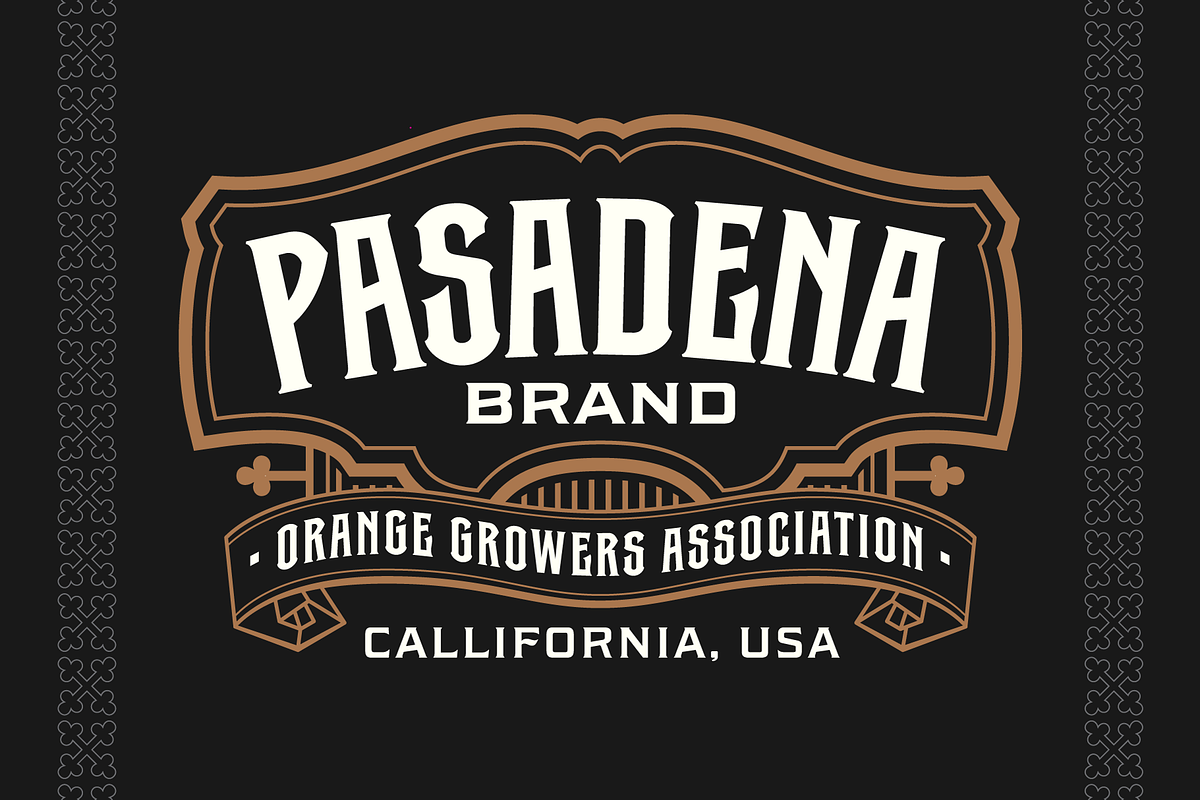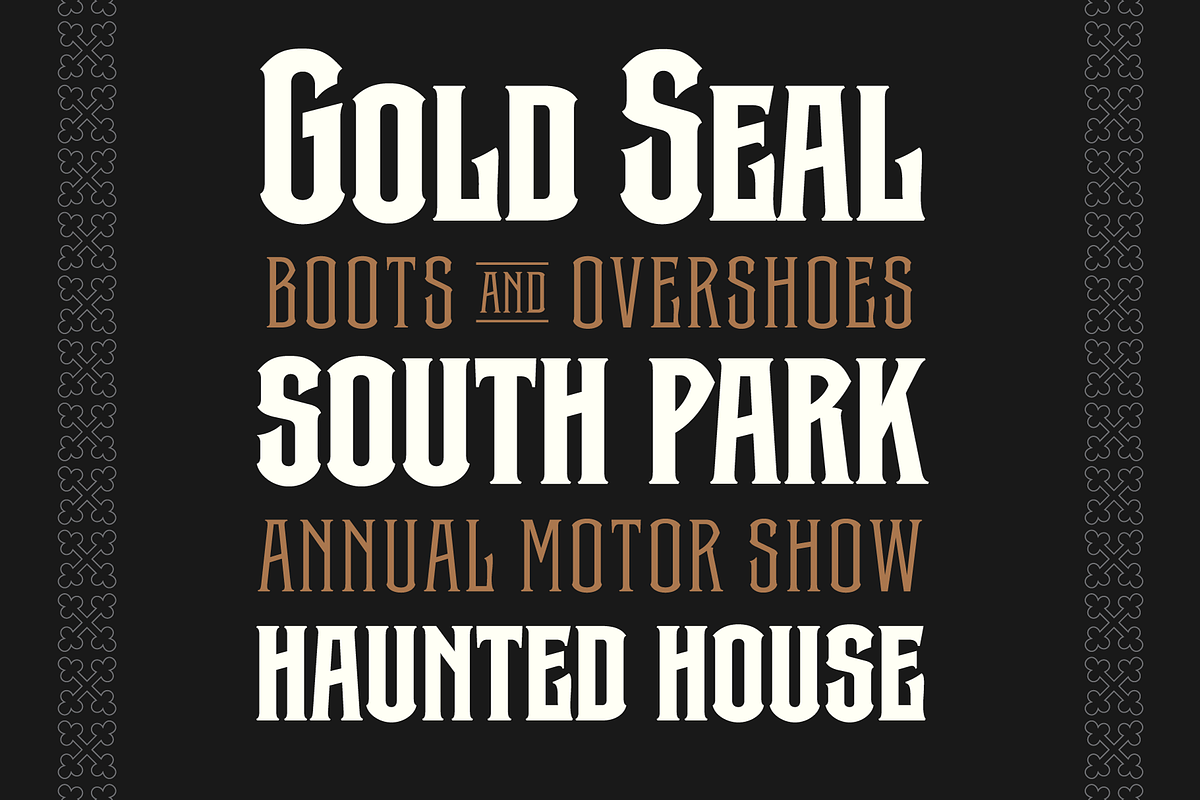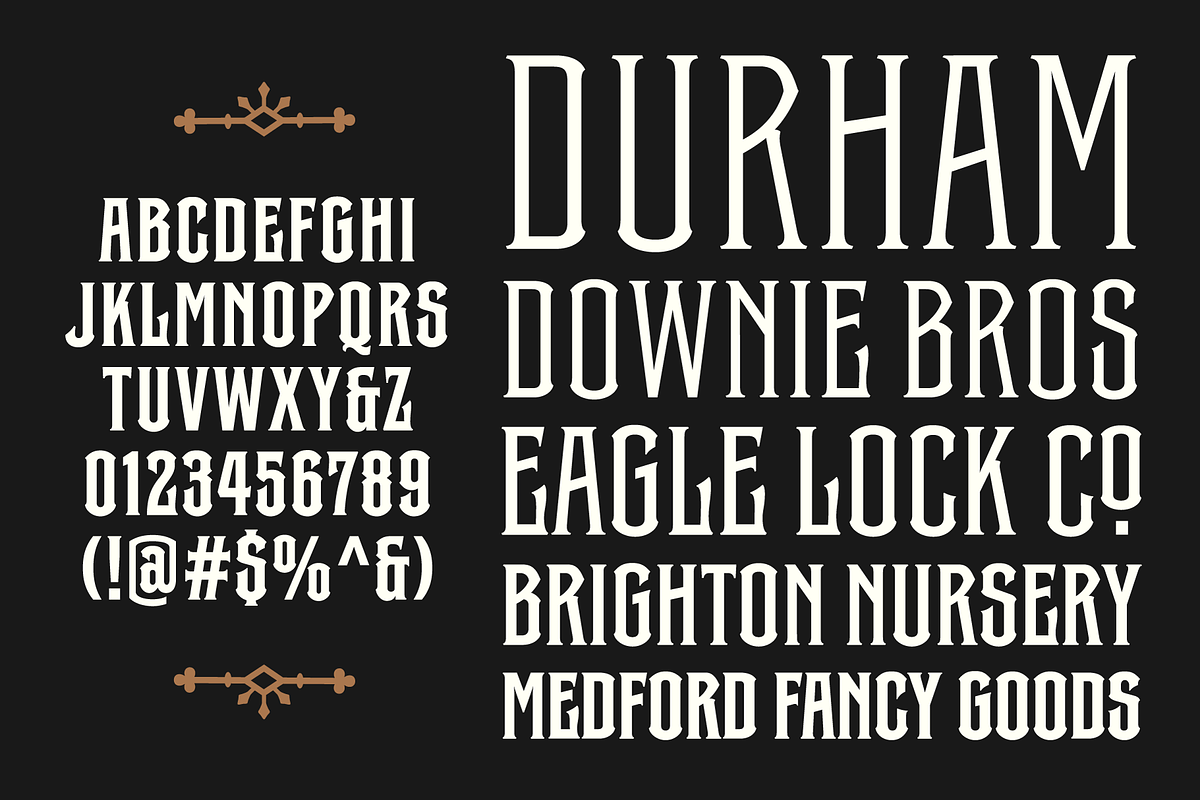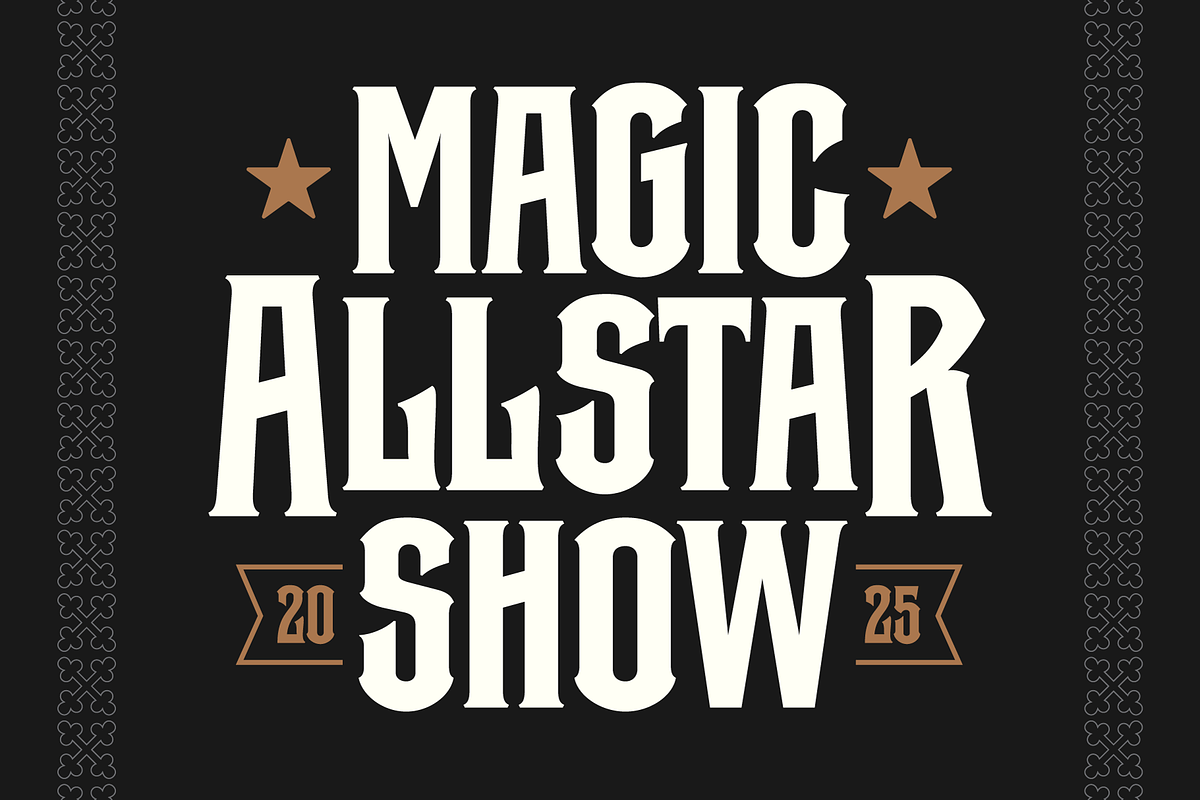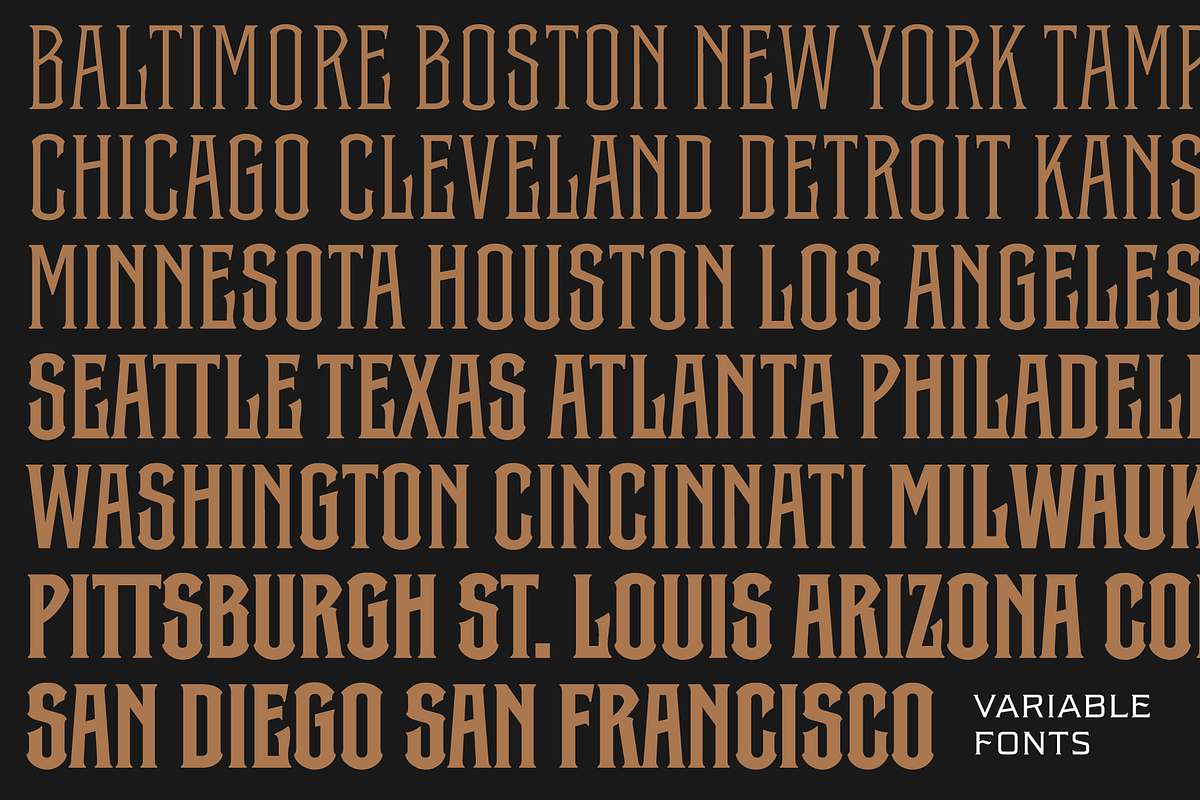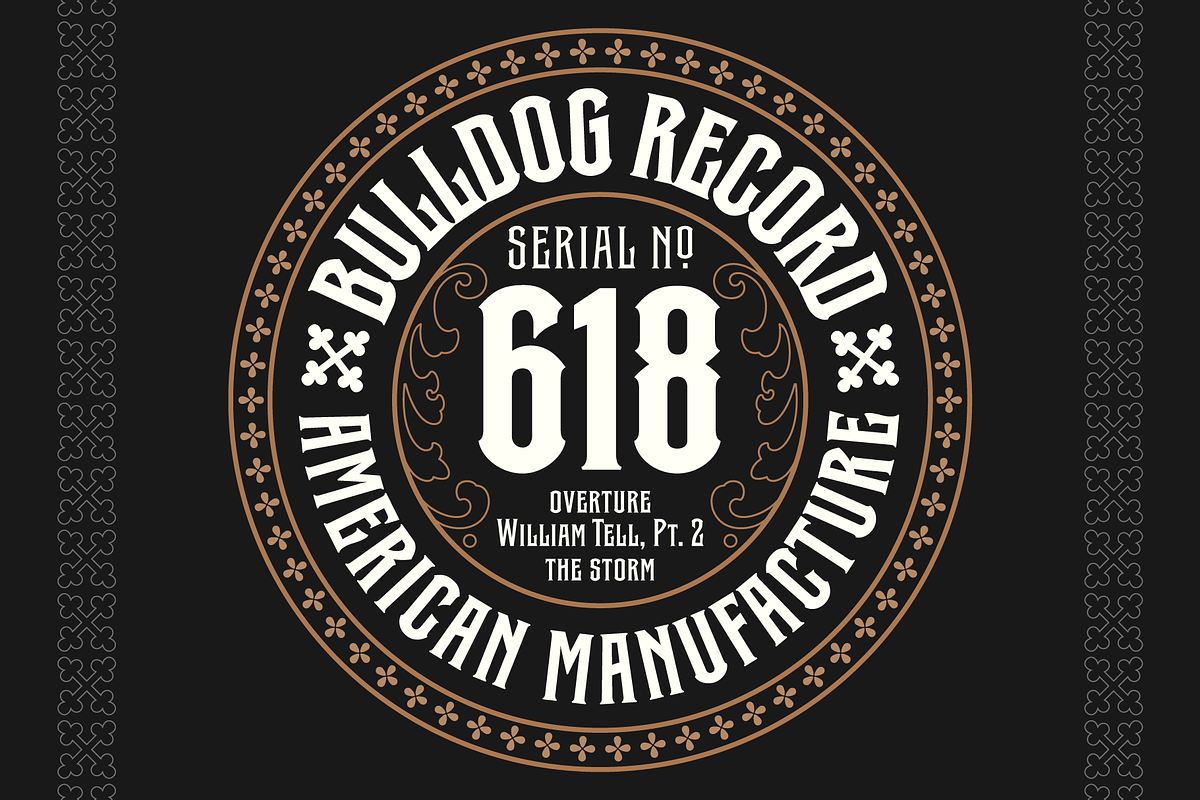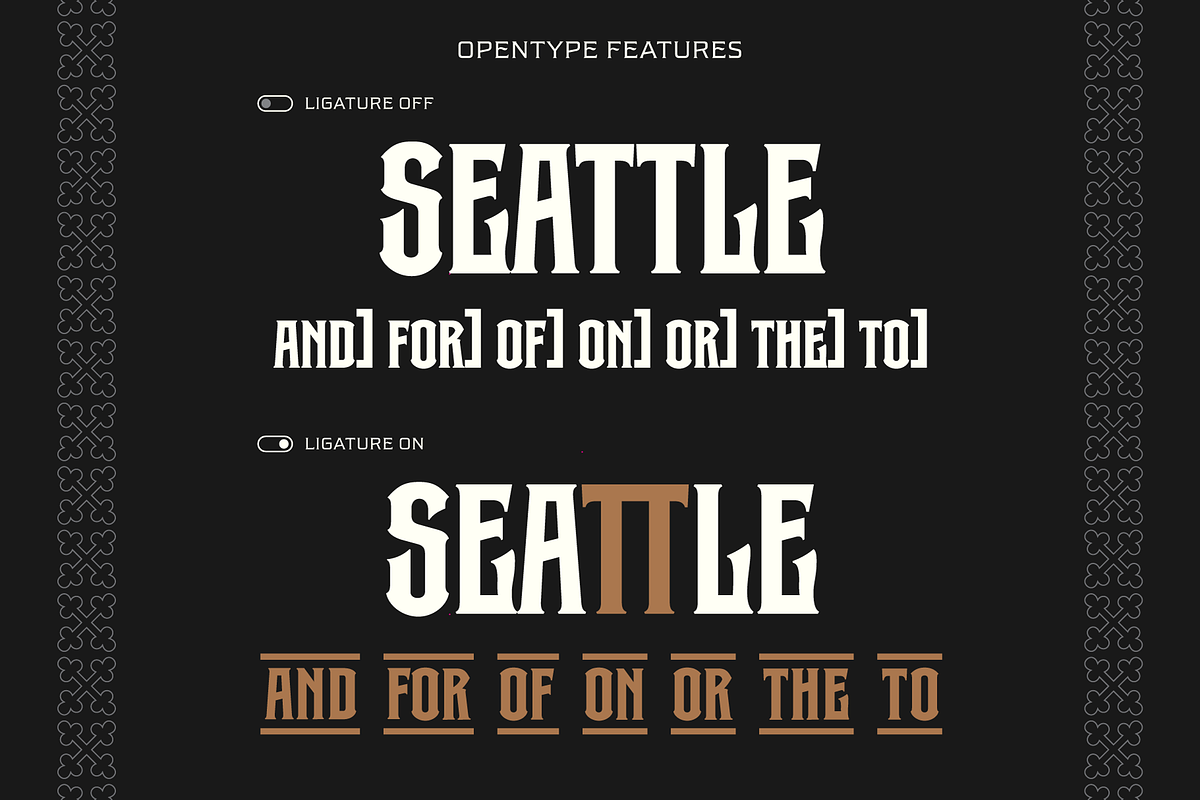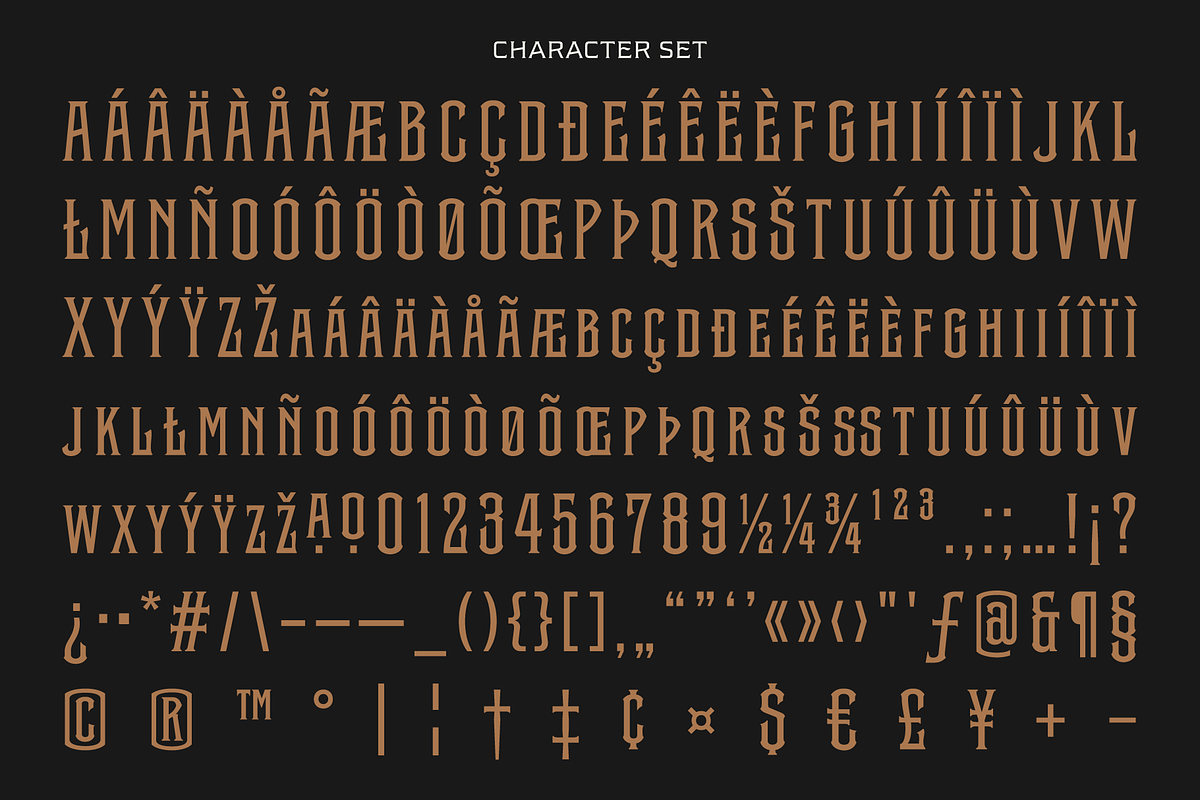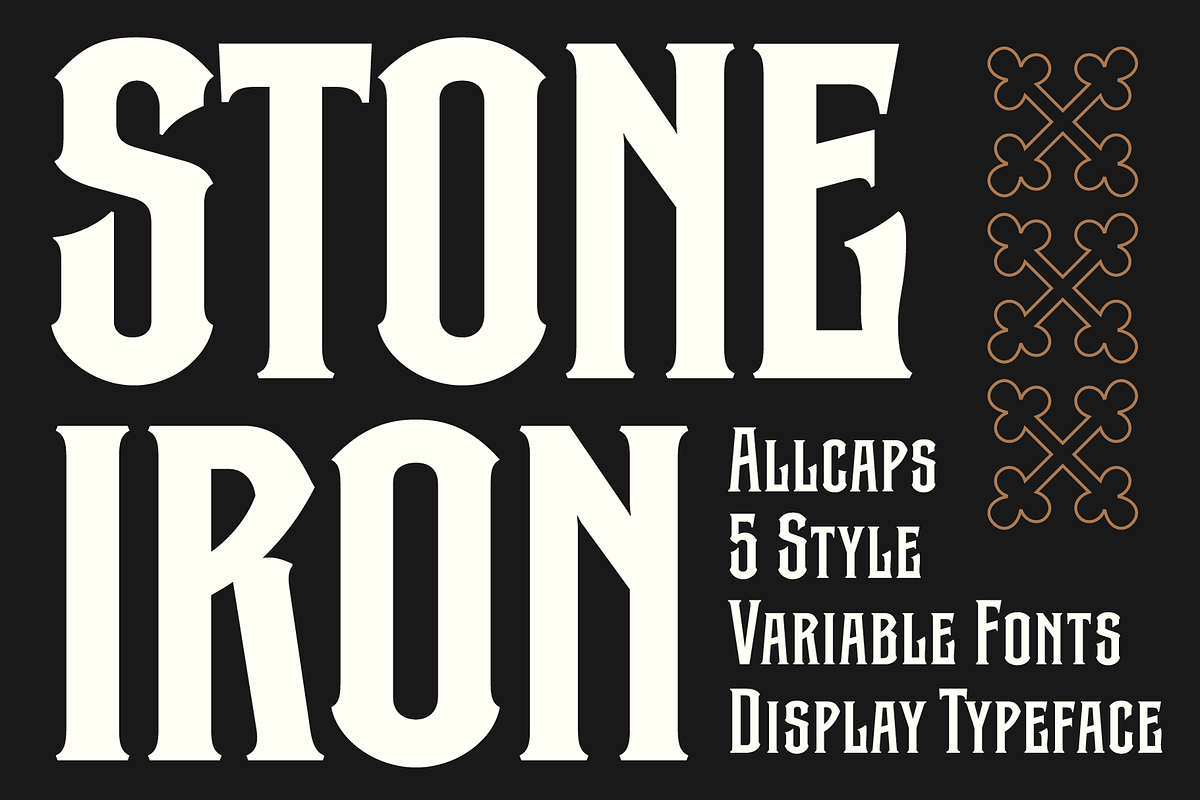
Stone Iron - 5 Weight + Variable
Stone Iron. A condensed vintage display typeface exuding strength and nostalgic charm, characterized by bold letterforms and distinctive spurs on each curve. Embracing OpenType features, it facilitates the creation of catchwords (and, for, of, on, or, the, to) through ligatures, enhancing visual appeal. The inclusion of a "TT" ligature ensures optimal spacing.
Offering versatility, this typeface comprises 5 static fonts and 1 variable font with weight axes, allowing precise weight adjustments for typographic harmony in diverse design compositions. Ideal for logos, headlines, labels, posters, signage, and any application demanding impactful typography to underscore your message.